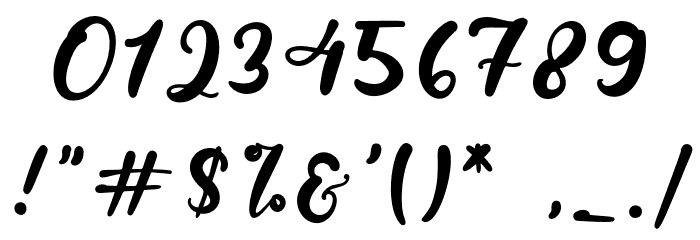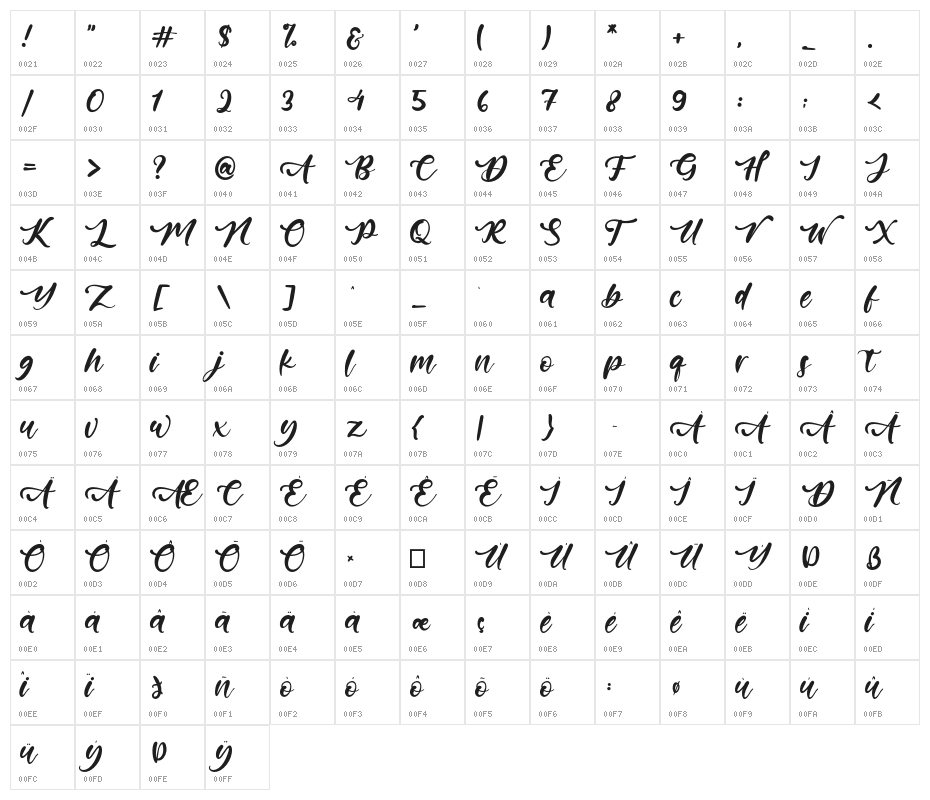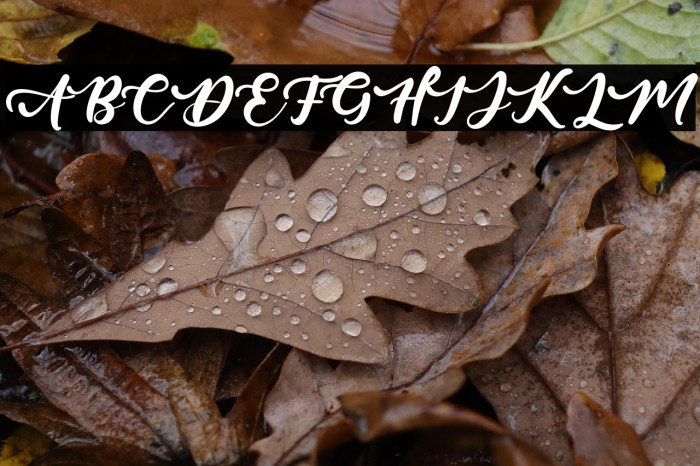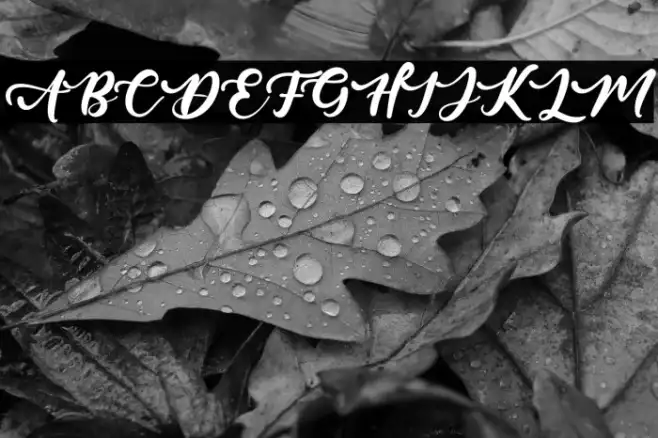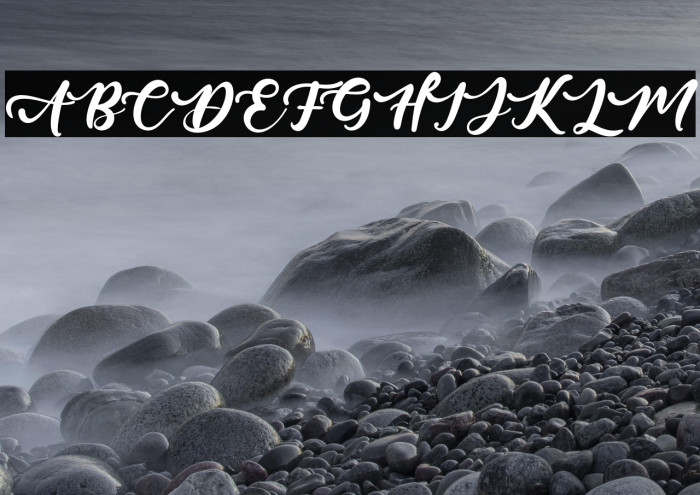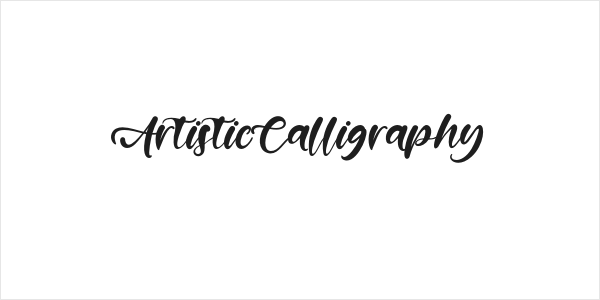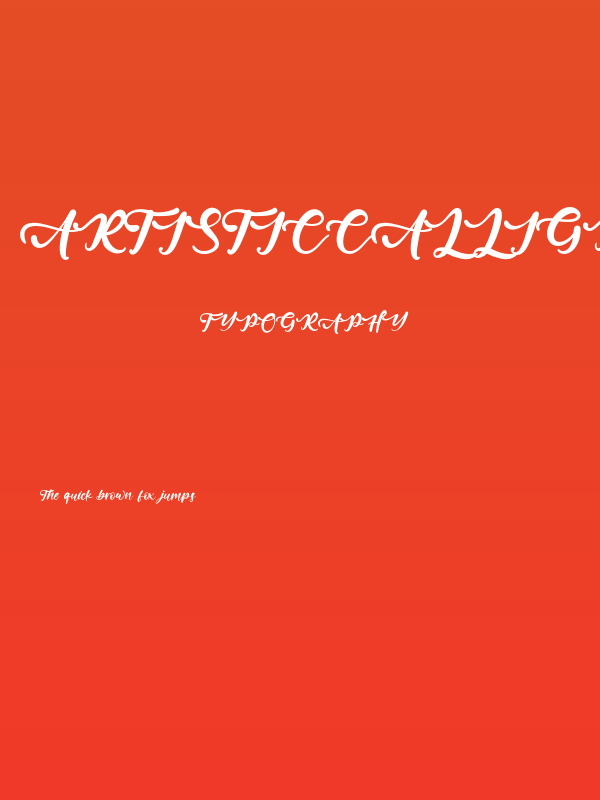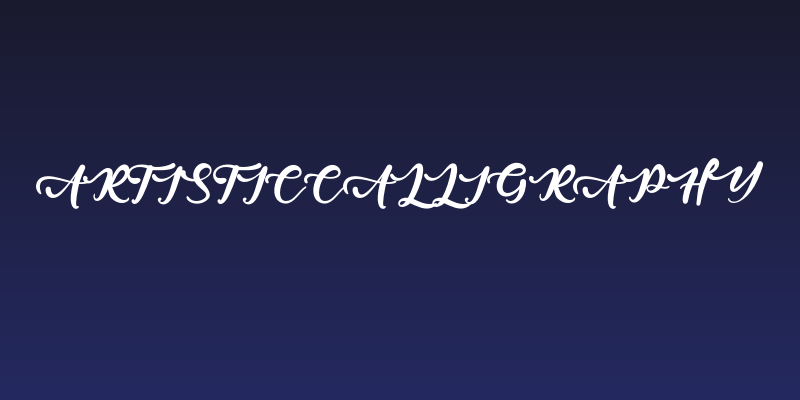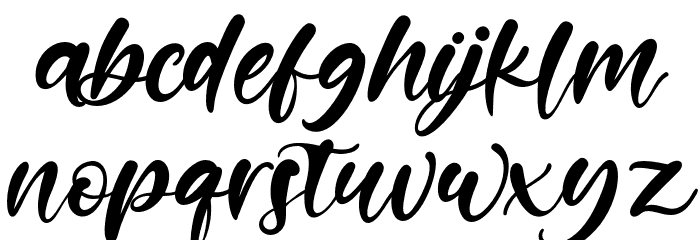
ArtisticCalligraphy Font
ArtisticCalligraphy Description
This font exudes a sense of elegance and fluidity, characterized by its cursive, calligraphic style. The letters are interconnected with smooth, flowing strokes that mimic the natural movement of a brush or pen. The uppercase letters are slightly more ornate, with flourishes that add a touch of sophistication. The lowercase letters maintain a consistent style, with rounded forms and gentle curves. Numbers and special characters are crafted with the same attention to detail, ensuring a cohesive look across all elements. The overall appearance is both artistic and readable, making it suitable for a variety of creative applications.
Use CaseLogos, Invitations, Artistic projects
Proposed ProjectsIdeal for wedding invitations, greeting cards, branding, and artistic projects that require a touch of elegance.